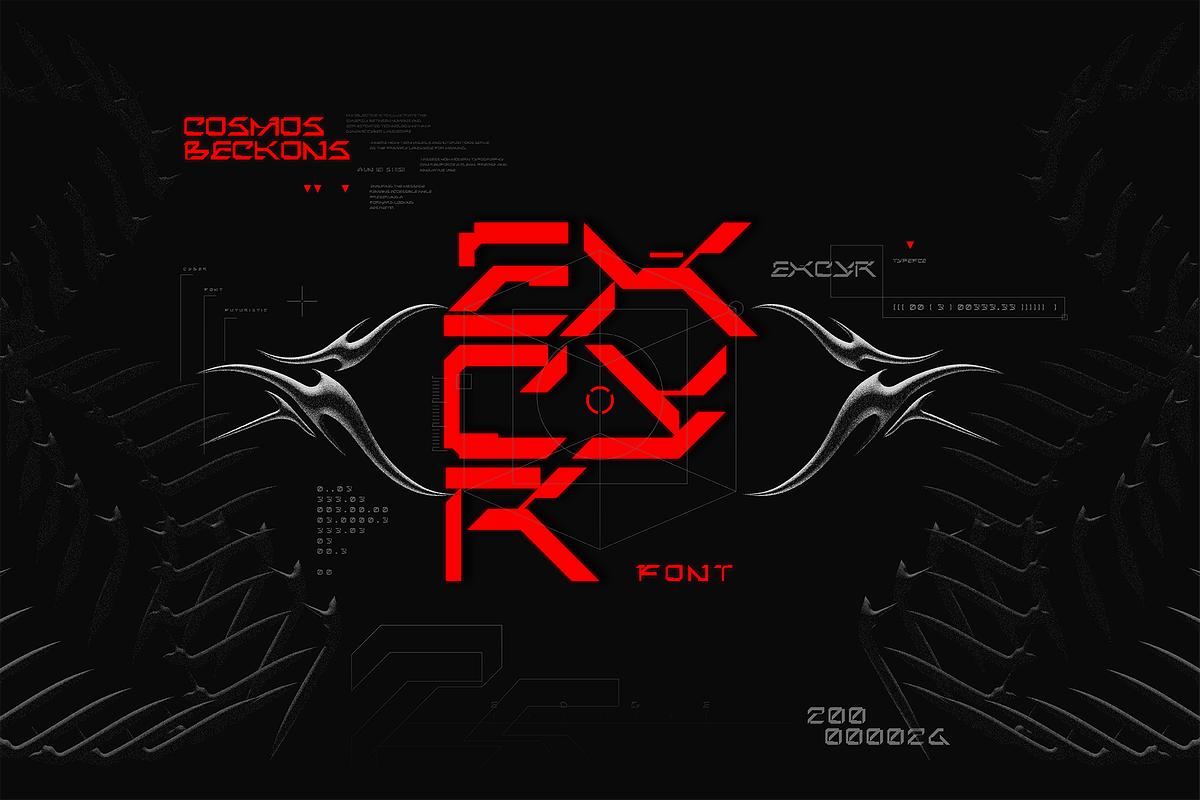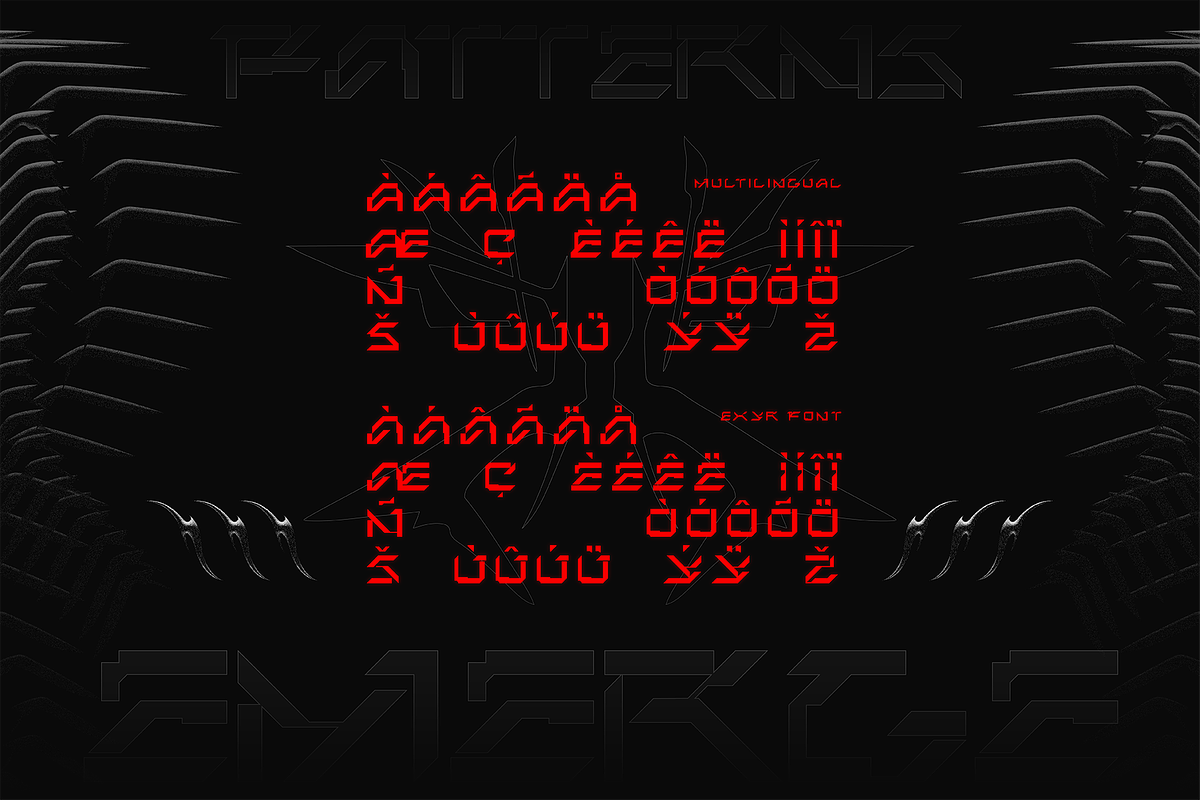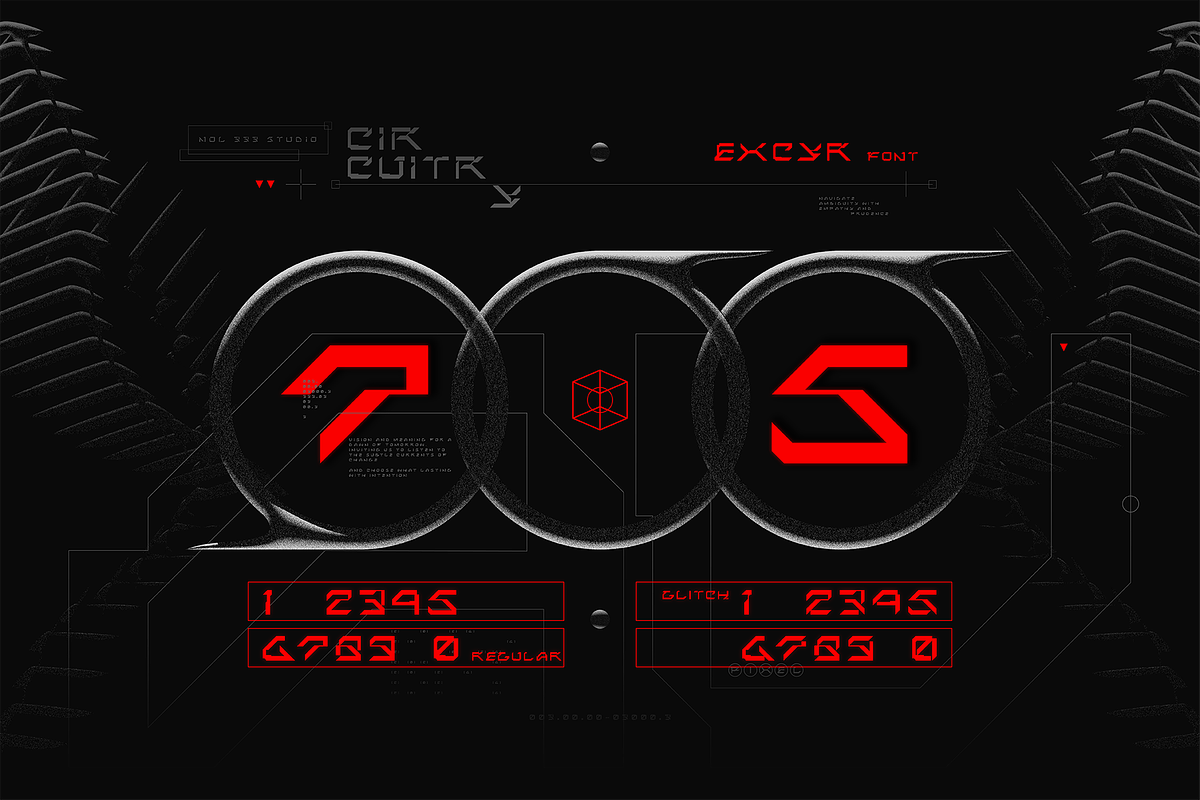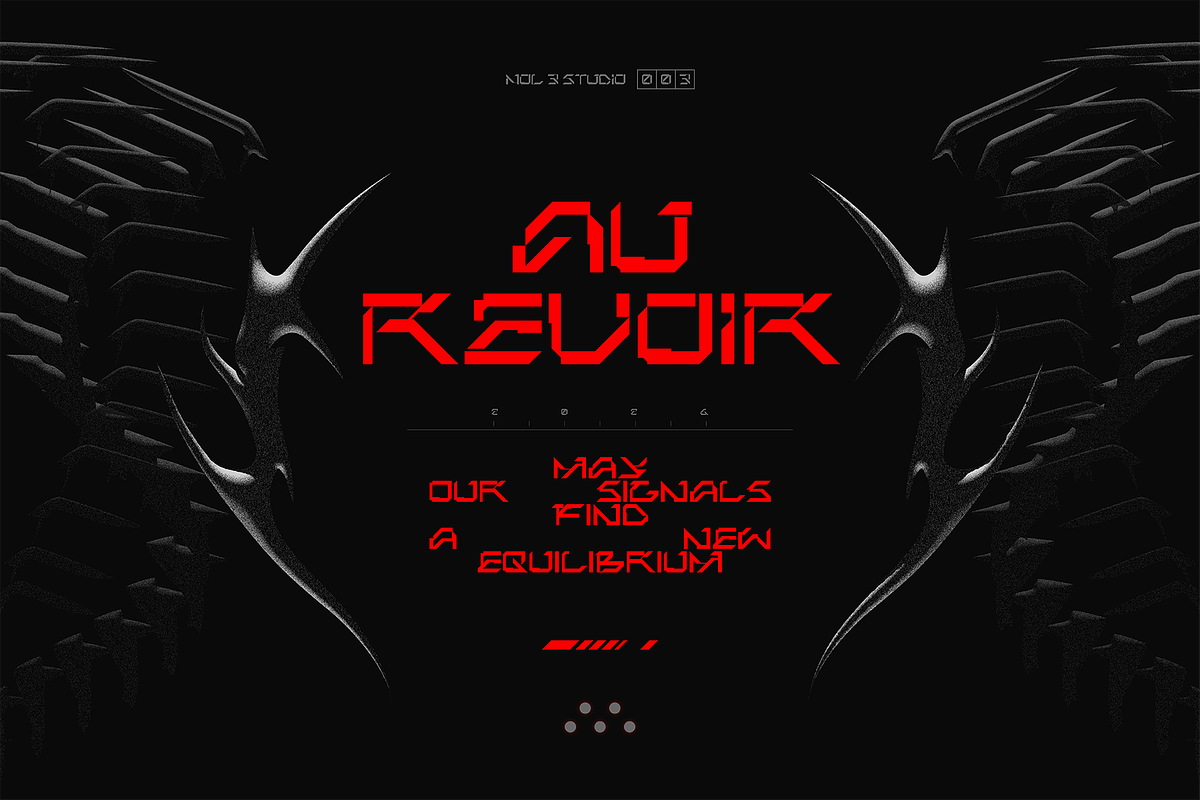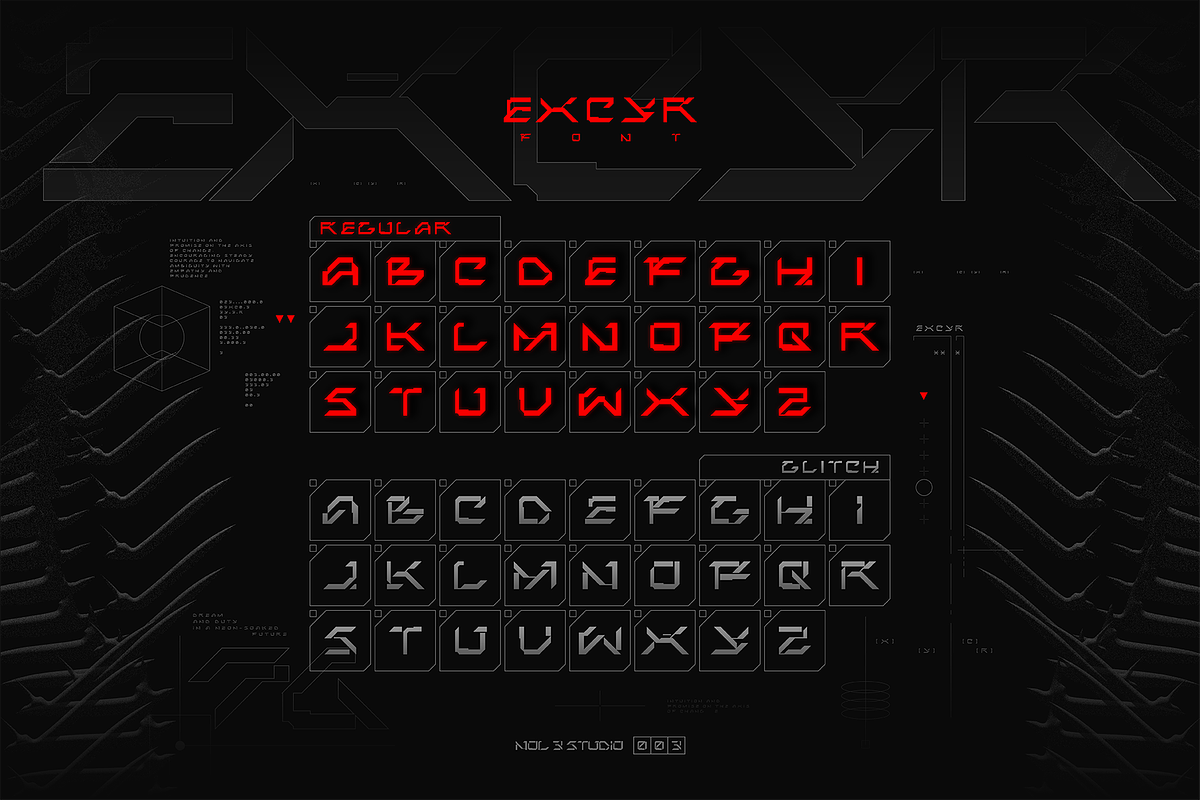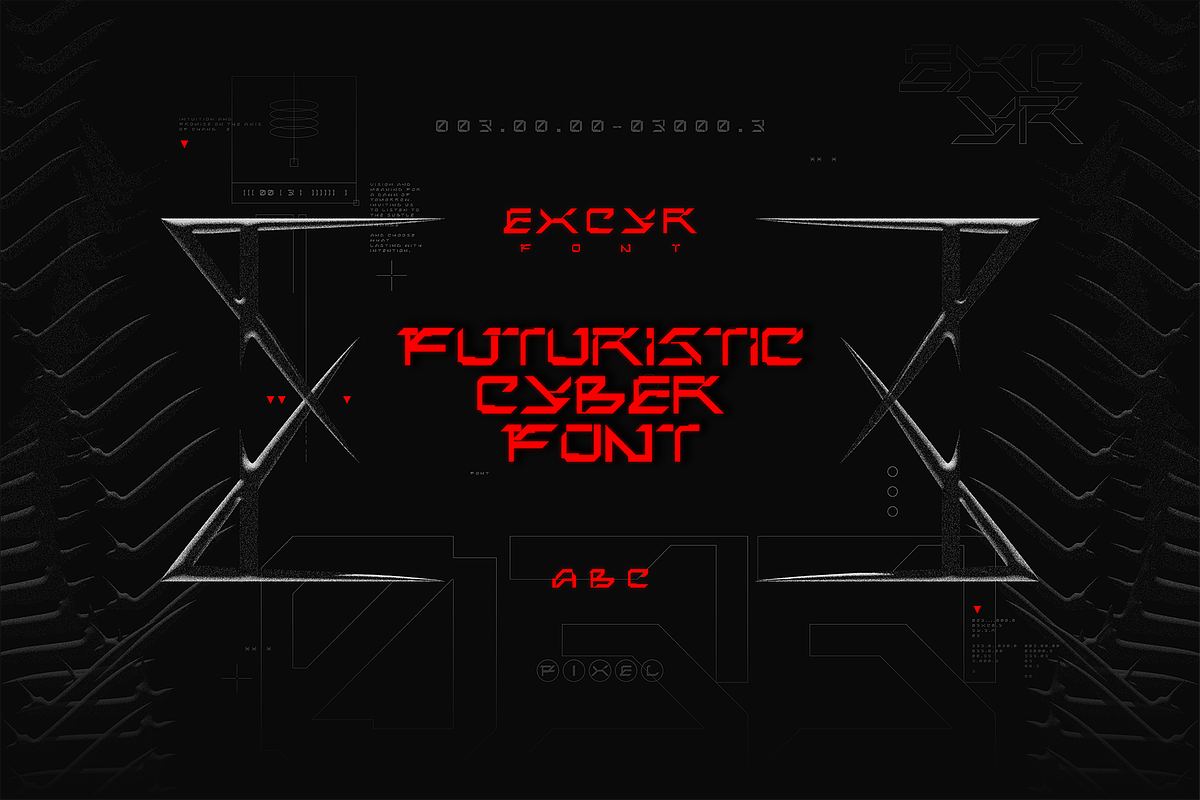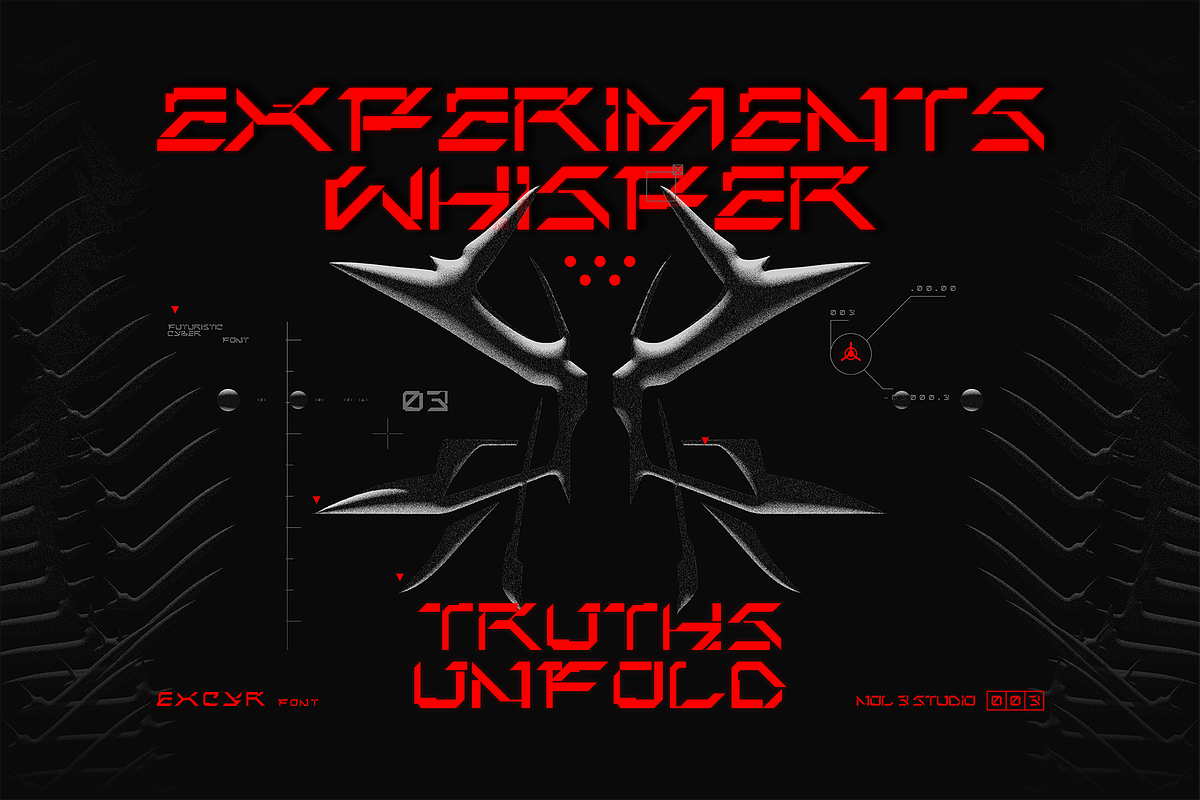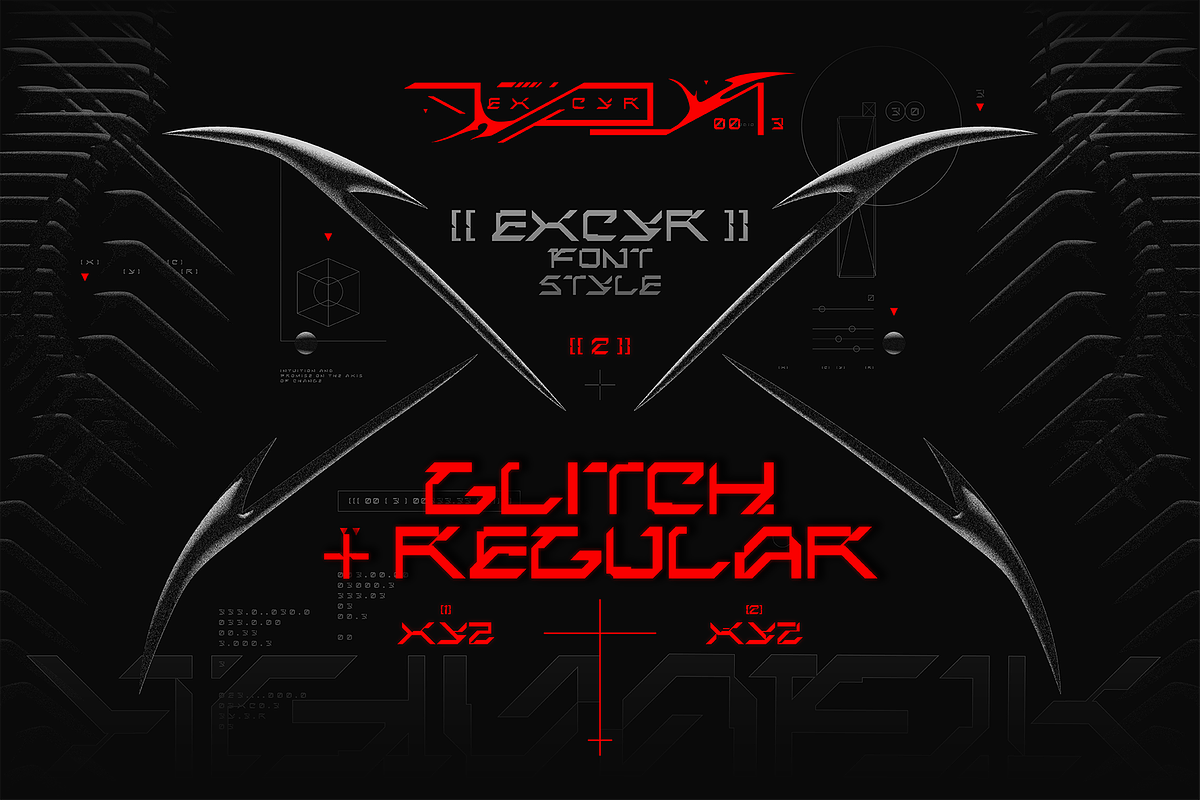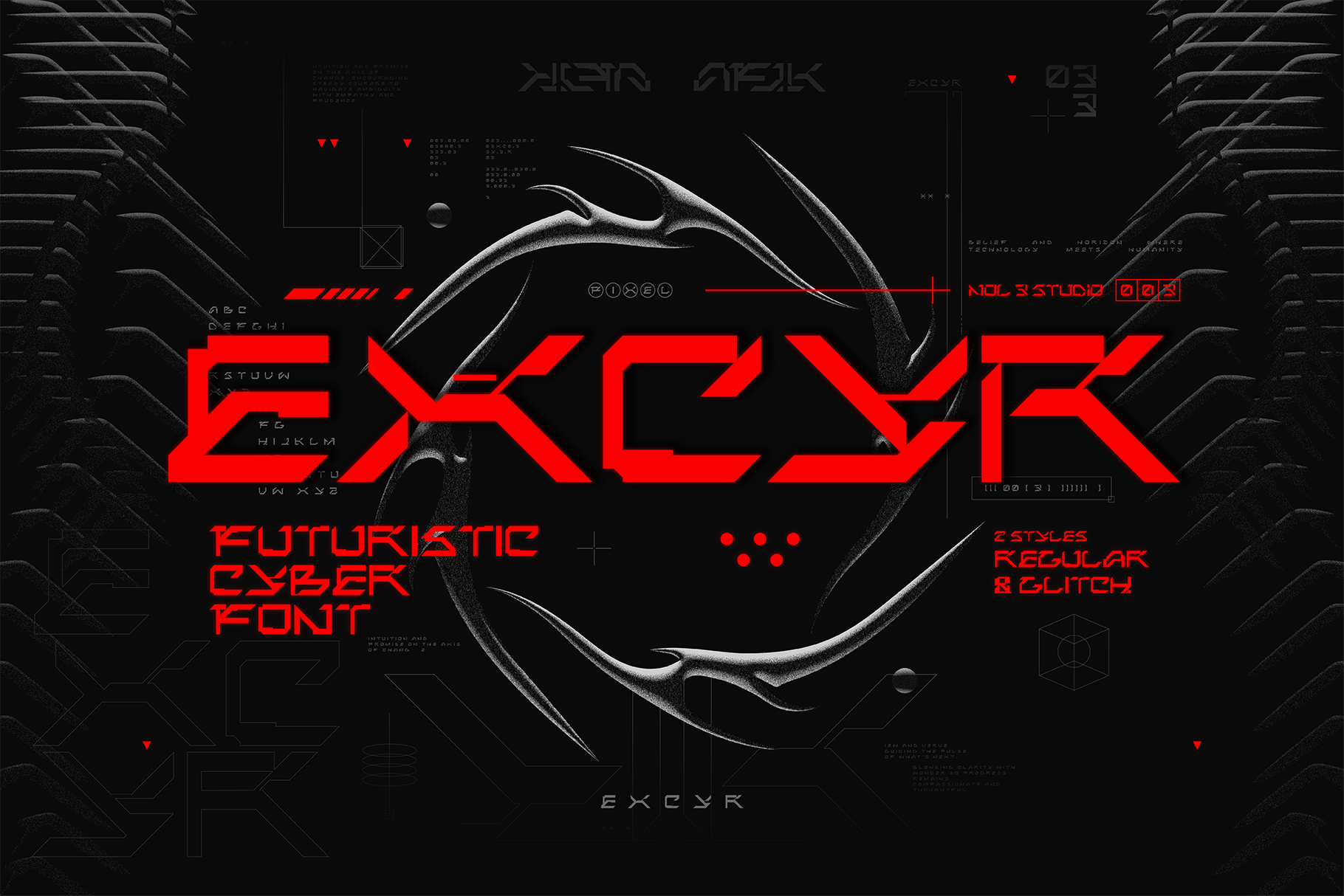
EXCYR | Futuristic Cyber Font
EXCYR futuristic cyber font is an excellent choice for modern sci-fi films, enhancing the immersive experience of advanced technology and otherworldly narratives. Its bold all-caps design features cyber elements, making it ideal for high-tech logos, while the glitch pixel aesthetic adds a distinctive flair that resonates with audiences captivated by the future of technology.
The Font Contains 200+ Glyphs
ALLCAPS Character
2 Font Styles (Regular & Glitch)